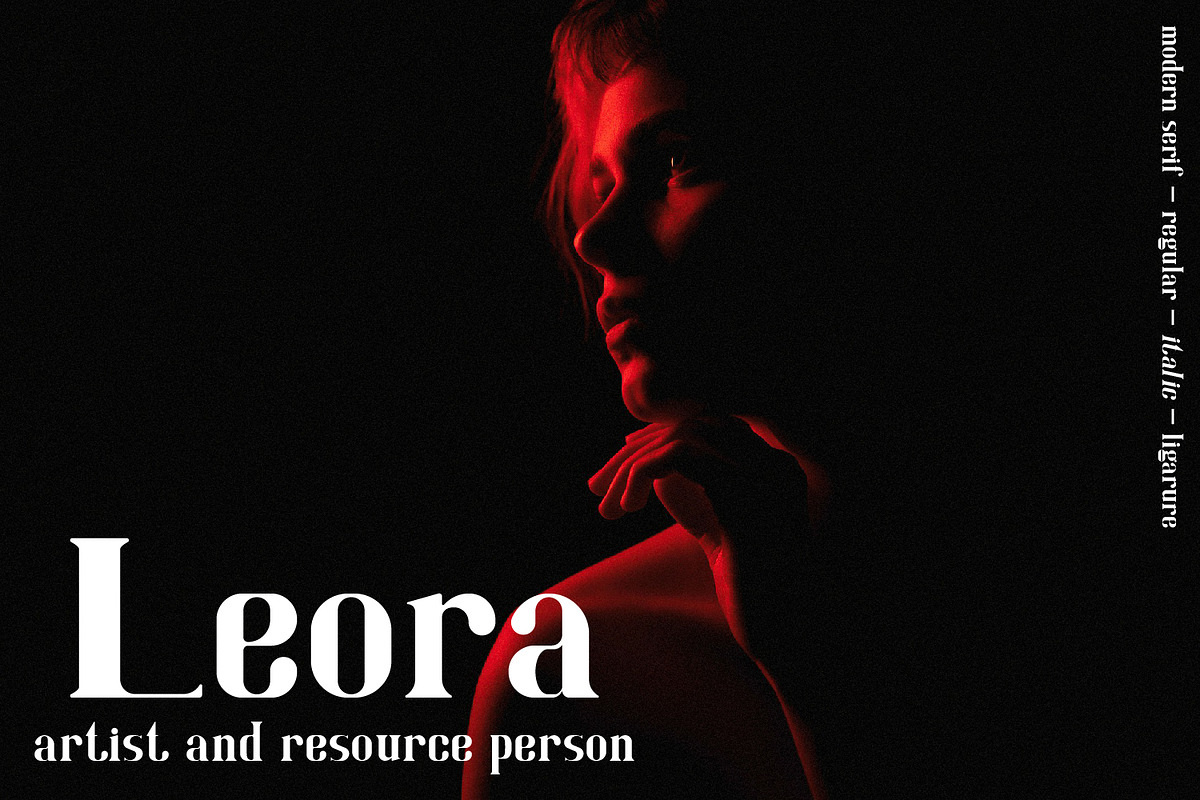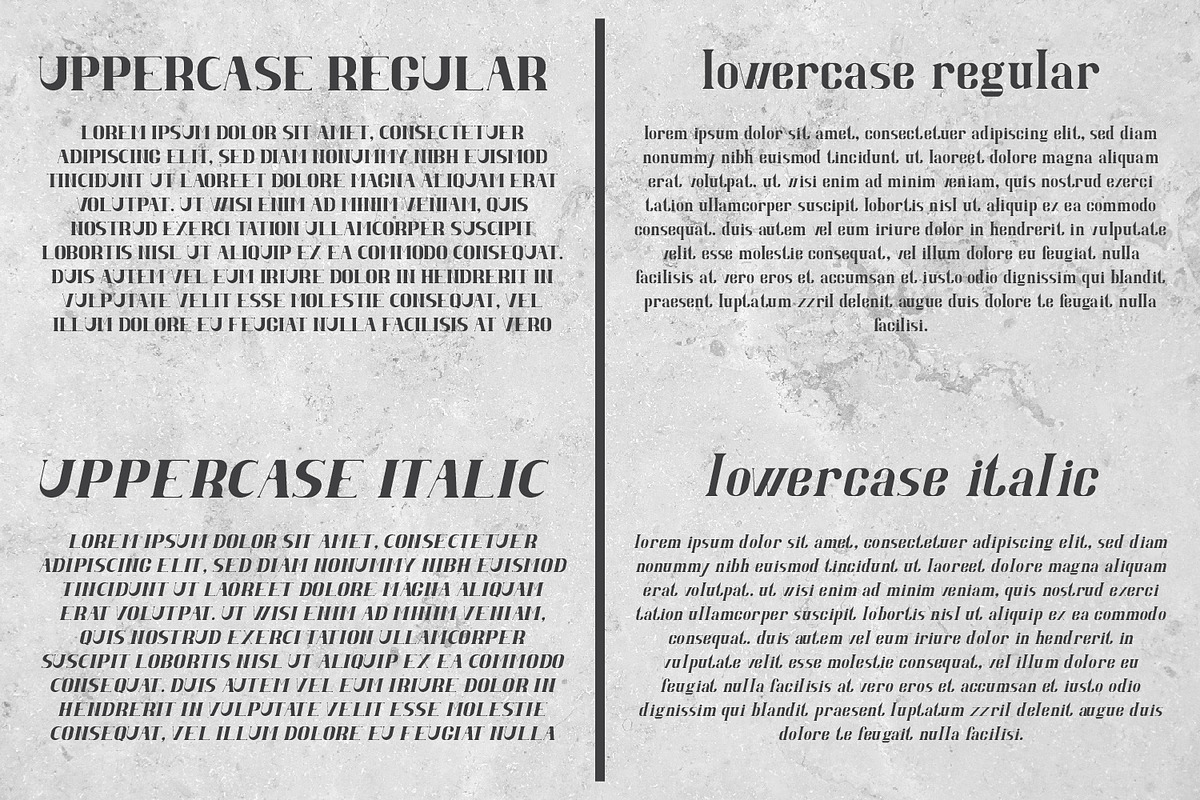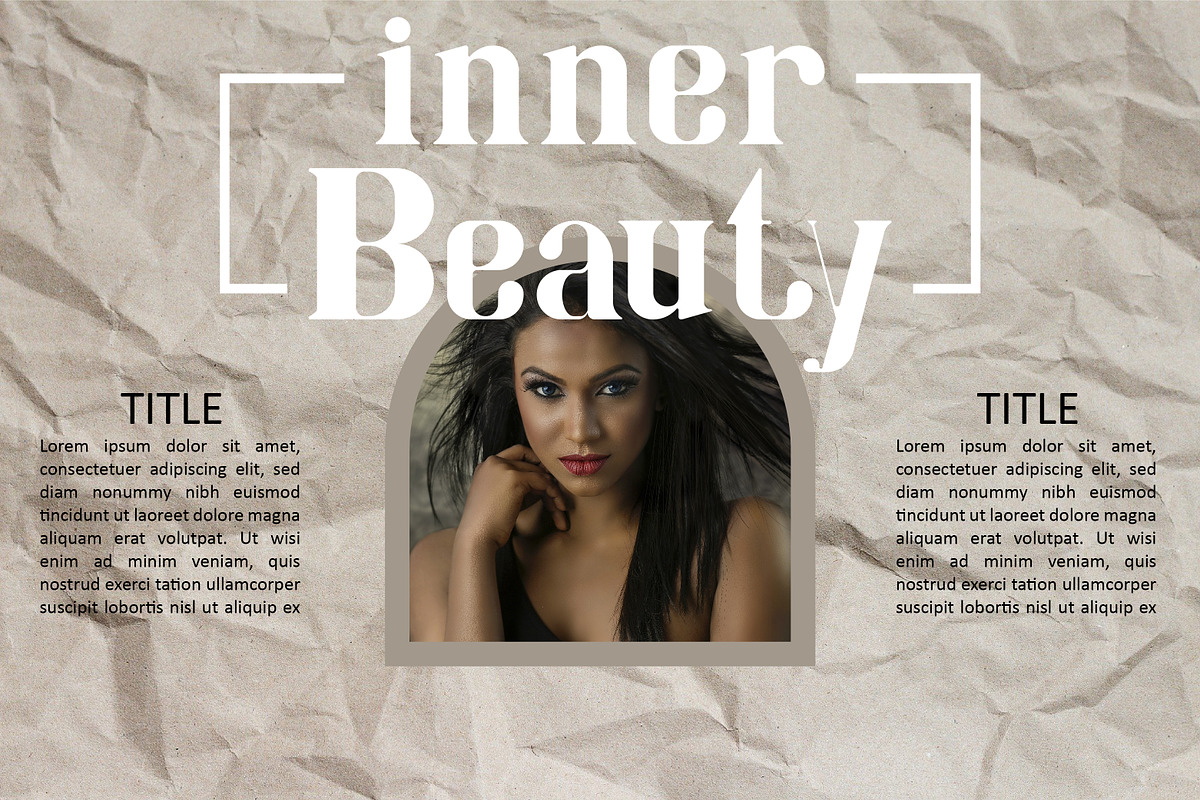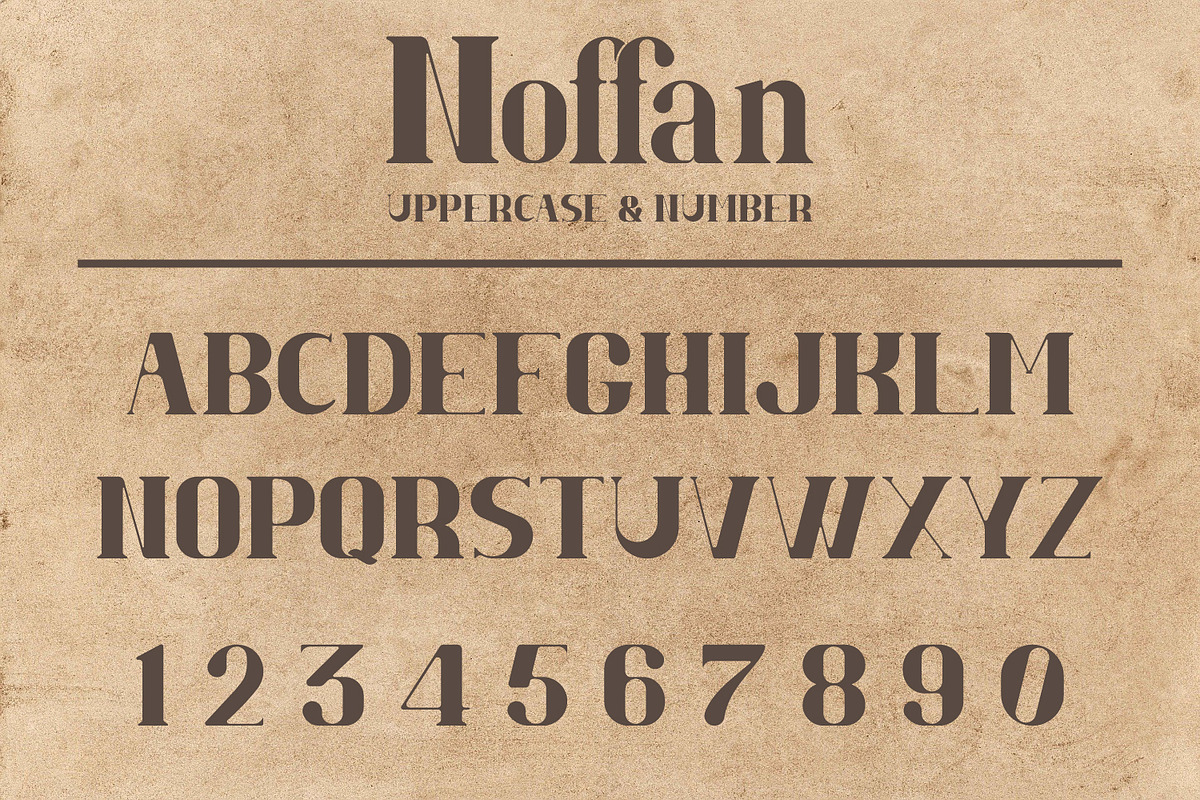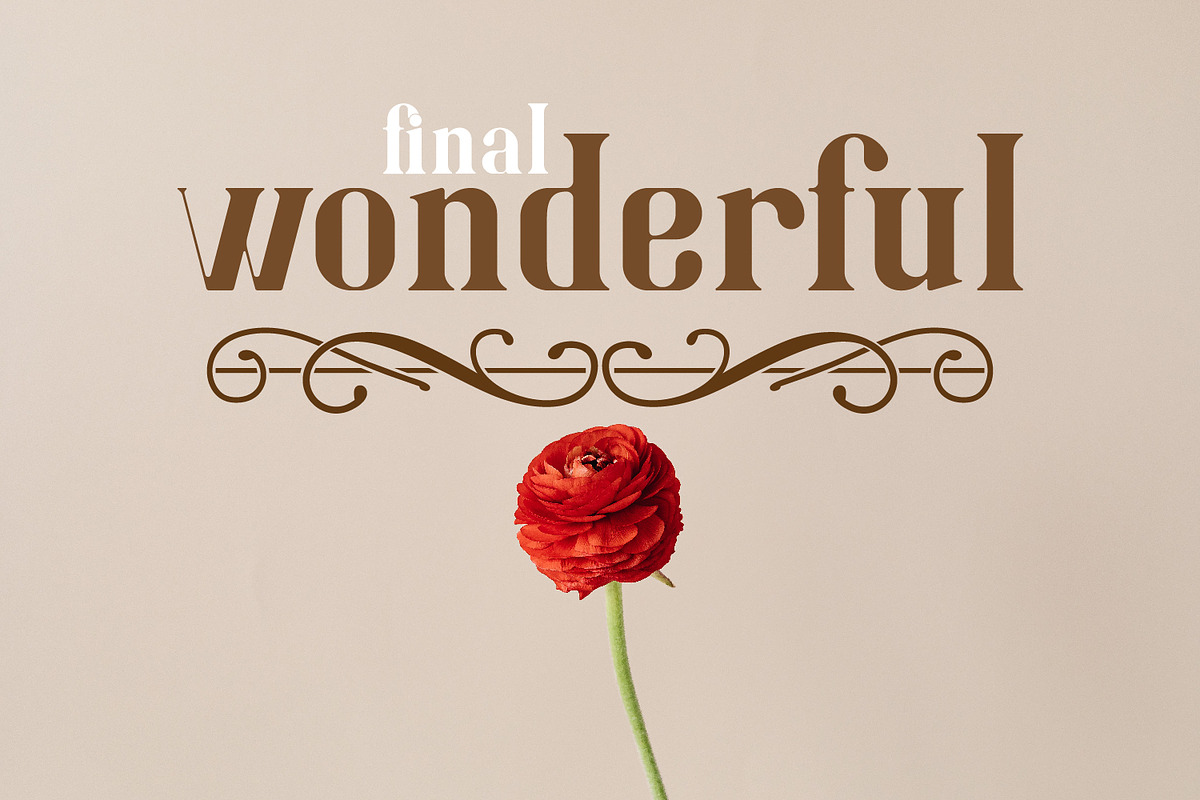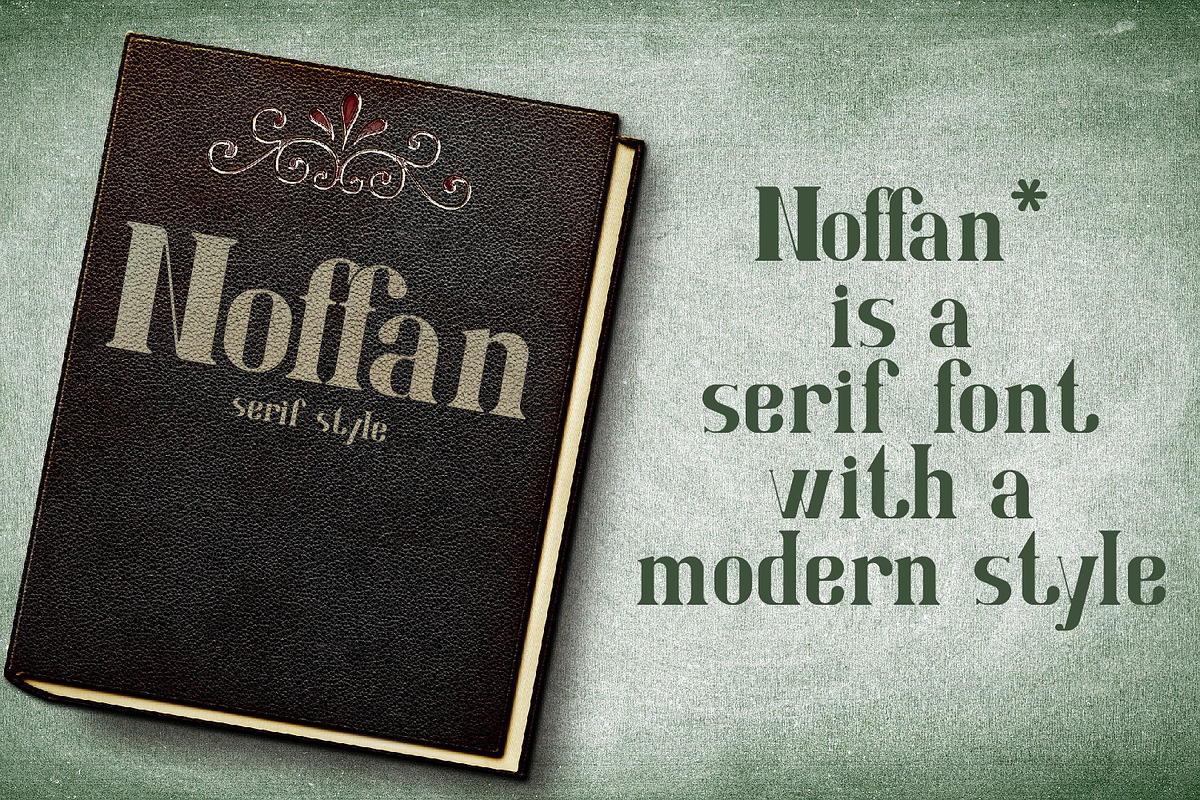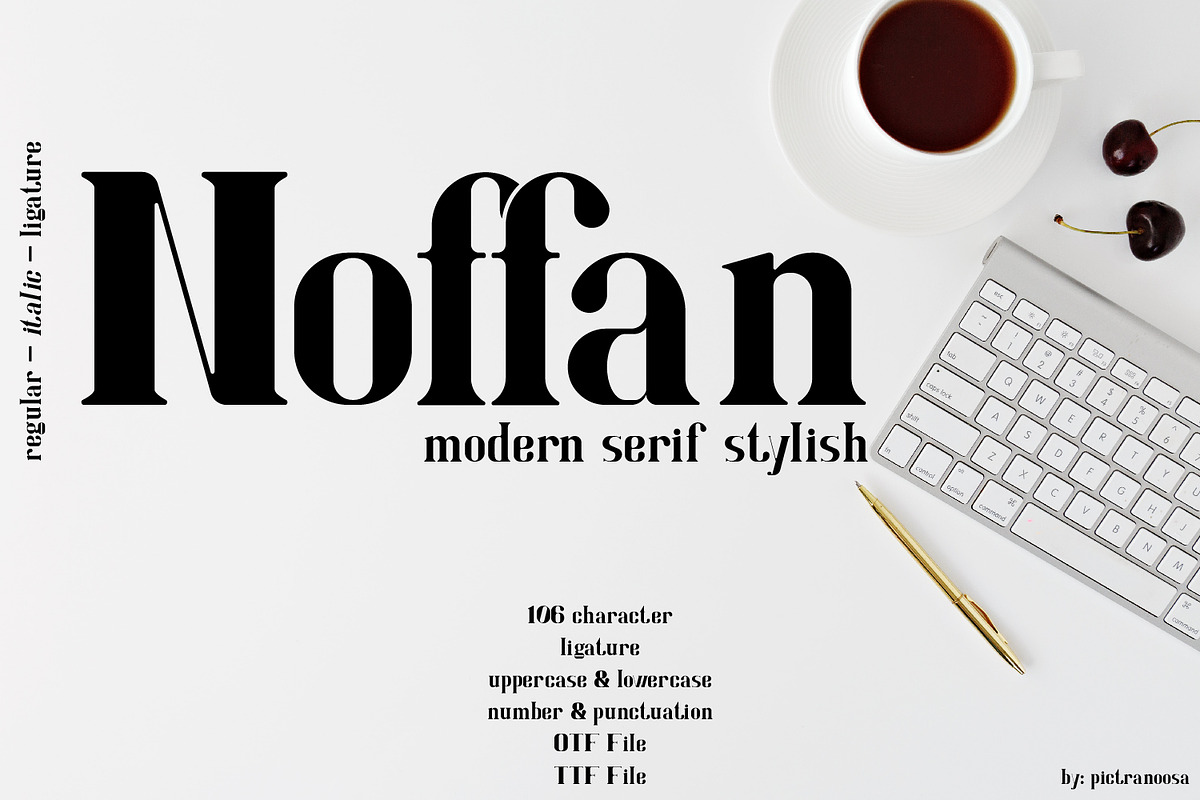
Noffan modern serif
Noffan is a beautiful modern serif typeface. has two models, regular and italic. designed with full precision and high accuracy. you can use it as the title of the article, the content of the article, the name of the logo, and others. Be more creative by using this font into your designs. you will get OTF, TTF files.